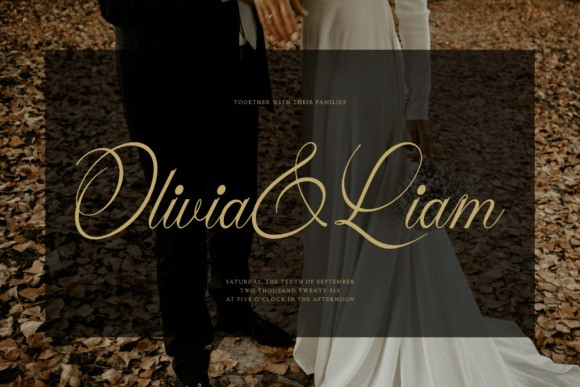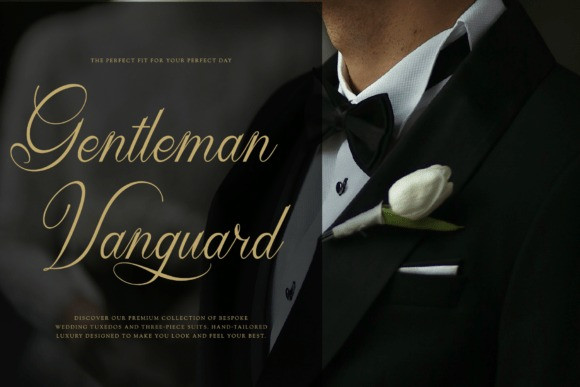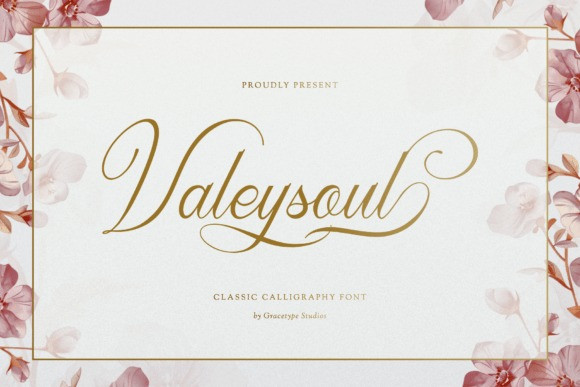
Valeysoul Font an aura of organic sophistication to your design layouts with Valeysoul, a fluidly captured display typeface. This high-contrast signature style typeface features elongated, expressive lowercase loops, dramatic ascenders, and a dynamic, forward-leaning italic slanting angle that effortlessly captures the authenticity of real fountain pen ink. Characterized by its contrasting thick downward pressure strokes and hair-thin upward transitions, it delivers a graceful, rhythmic baseline. Valeysoul is the premier choice for luxury wedding invitation typography, premium fashion brand identity systems, high-end beauty product packaging, editorial signature logos, boutique wine labeling, and prestigious social media titles requiring a custom, artisanal aesthetic.